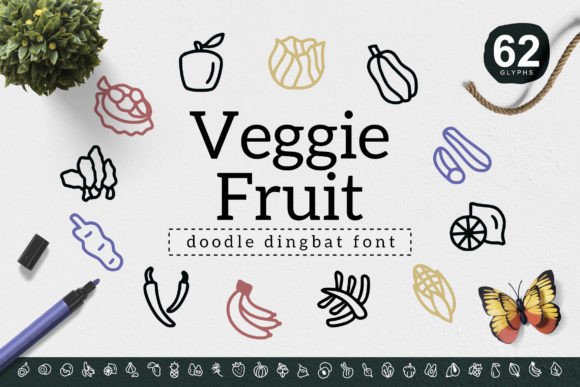
Prepare to be amazed as you discover Veggie Fruit Font, the ultimate dingbats font that will transform your creative projects into captivating masterpieces. Picture this: a font so charming, it will turn your designs into playful and irresistible works of art. Let your imagination run wild as you conjure up delightful stickers, eye-catching posters, unique t-shirts, heartwarming cards, and striking apparel graphics. With Veggie Fruit Font, the possibilities are endless, and the results will be nothing short of extraordinary.
Express your individuality and make a statement with Veggie Fruit Font. Whether you're a seasoned designer or just starting, this font is your key to unlocking a world of creativity and enjoyment. Its playful nature and versatility will ignite your passion for design, and you'll find yourself reaching for it again and again. So, dive into the world of Veggie Fruit Font today and prepare to be amazed by its transformative power.
Don't miss out on this incredible opportunity to elevate your designs to new heights. Veggie Fruit Font is waiting to unleash your creativity and bring your visions to life. Let your imagination soar as you explore the endless possibilities that await you. Embrace the joy of creation and embark on a journey of artistic expression with Veggie Fruit Font as your trusted companion. Your creative projects will never be the same again.